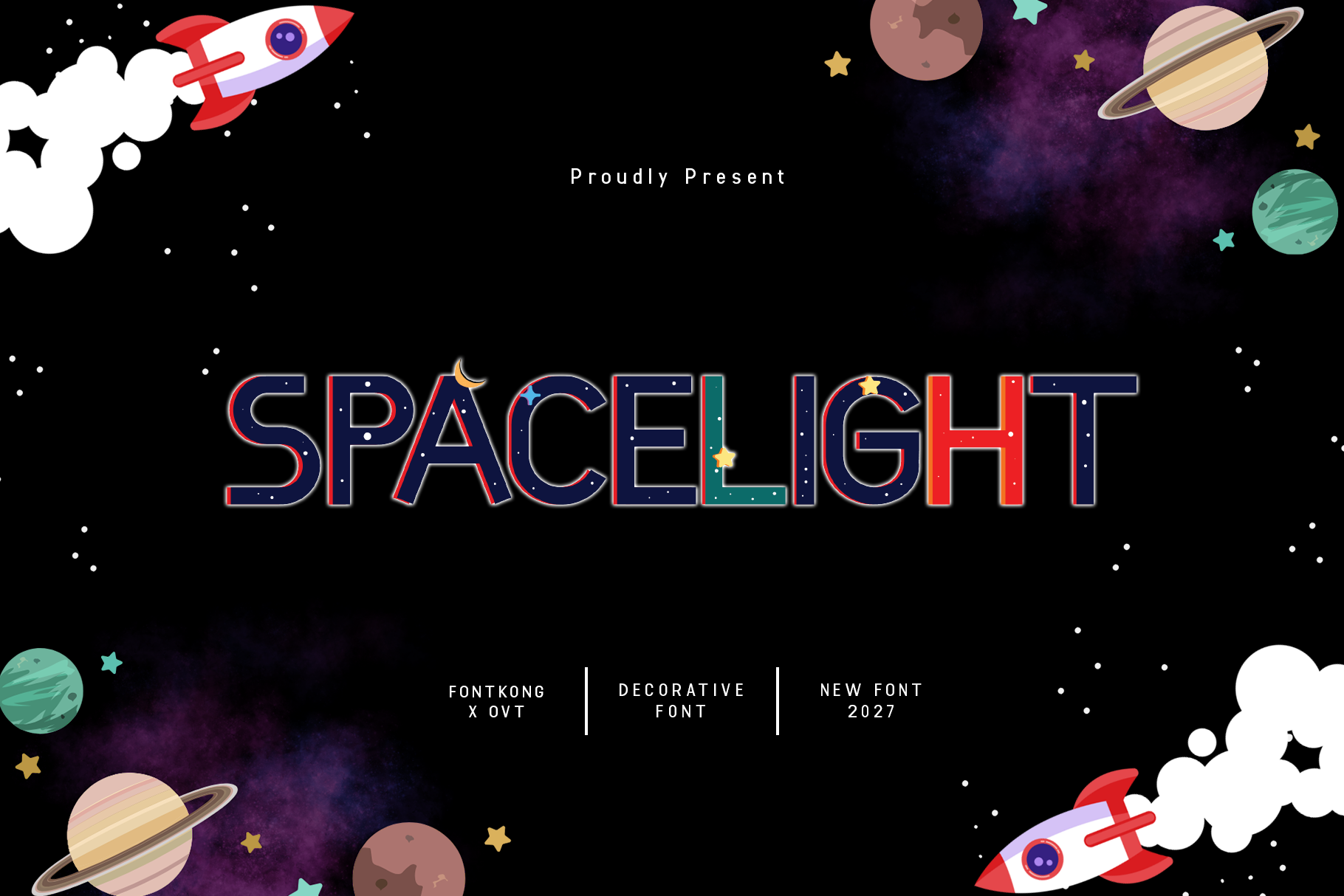
Spacelight - Unique Decorative Font
Spacelight is a unique decorative font perfect for futuristic projects. Its bold design is ideal for creating logos, tech-inspired themes, and eye-catching headlines. Bring creativity to your designs with Spacelight.